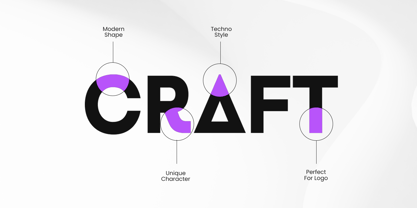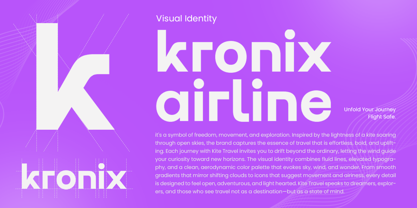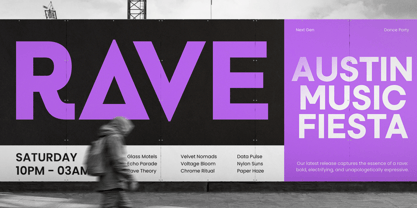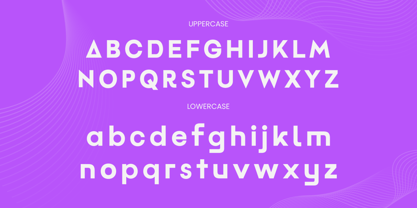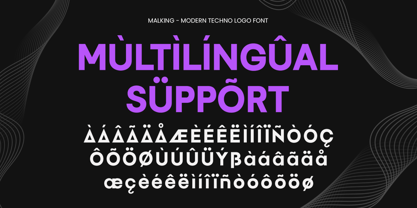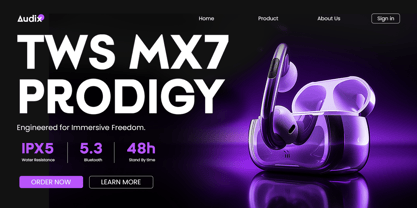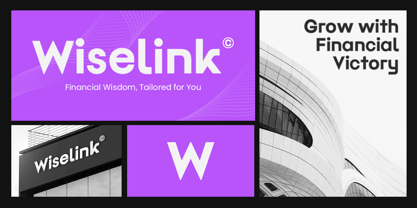
Malking is a sleek modern techno font designed to power up your brand with futuristic energy. Featuring geometric precision and bold styling, Malking is ideal for logos, app interfaces, tech startups, esports brands, and digital campaigns that want a cutting-edge visual identity.
Every letterform is engineered with clean lines and powerful structure to ensure maximum readability and modern appeal. Whether in motion graphics, packaging, or on-screen UI, Malking makes your typography stand out with confidence and clarity.
Craft your next innovation with Malking, where modern design meets digital dominance.
Malking – Modern Techno Logo Font Features
Bold techno style with geometric aesthetics
Perfect for logos, UI, apps, esports, and tech branding
Punctuation, numbers, and symbols included
Uppercase and lowercase letters
OpenType features for smooth usability
Multilingual support for
Afrikaans, Albanian, Asu, Basque, Bemba, Bena, Breton, Chiga, Cornish, Dutch, English, Estonian, Filipino, Finnish, Friulian, Galician, German, Gusii, Indonesian, Irish, Italian, Kabuverdianu, Kalenjin, Kinyarwanda, Luo, Luxembourgish, Luyia, Machame, Makhuwa-Meetto, Makonde, Malagasy, Manx, Morisyen, North Ndebele, Nyankole, Oromo, Portuguese, Quechua, Romansh, Rombo, Rundi, Rwa, Samburu, Sango, Sangu, Scottish Gaelic, Sena, Shambala, Shona, Soga, Somali, Spanish, Swahili, Swedish, Swiss, and more.
Elevate your digital brand with Malking—a futuristic font that commands attention.